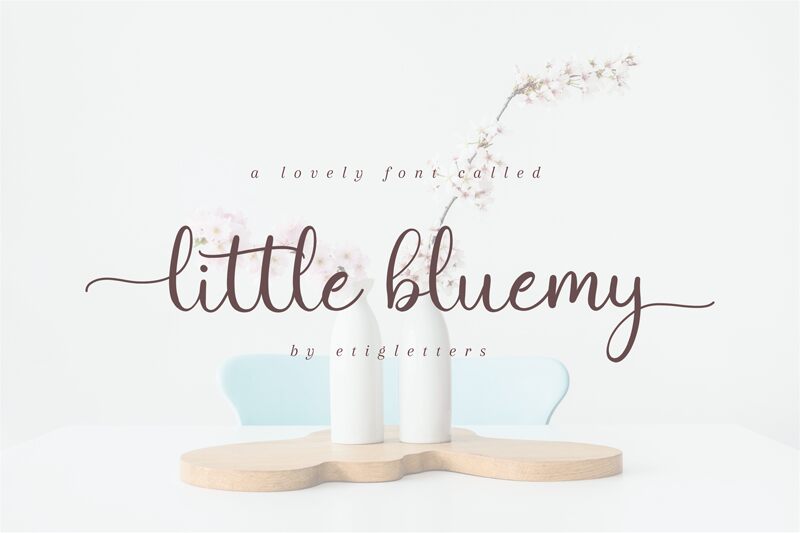
Little Bluemy
Little Bluemy, a mesmerizing calligraphy font designed by Etigletters, is an elegant and delicate typeface that exudes sophistication and grace. Its light weight makes it perfect for use in wedding invitations, greeting cards, and other formal occasions where a touch of refined beauty is desired. The fluid strokes of Little Bluemy will add a touch of whimsy to branding materials like logos or packaging designs. This versatile font is also well-suited for digital projects such as websites or social media graphics where its intricate details will stand out. Add a touch of class to your next project with Little Bluemy!
Etigletters